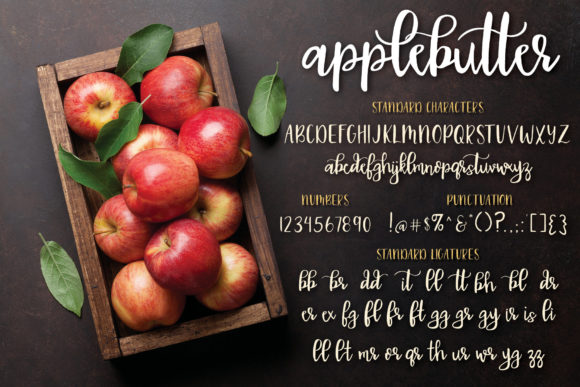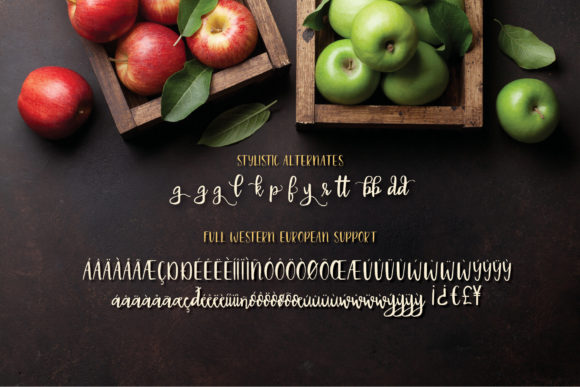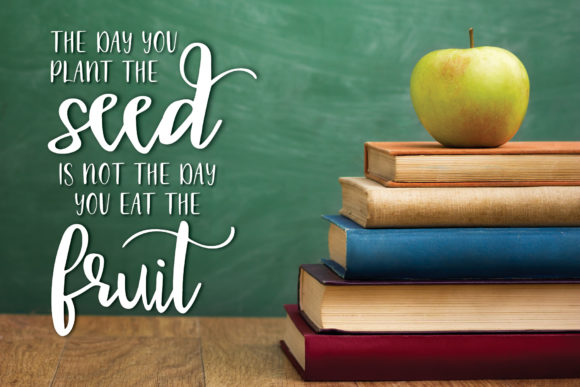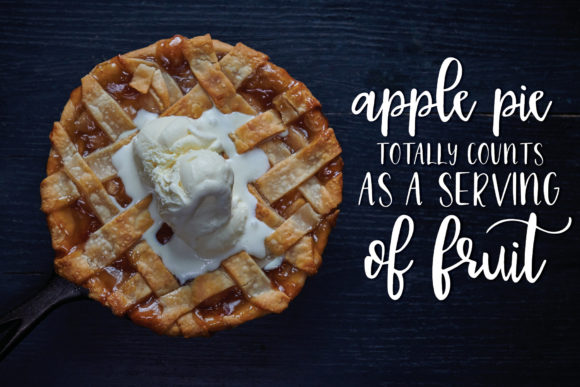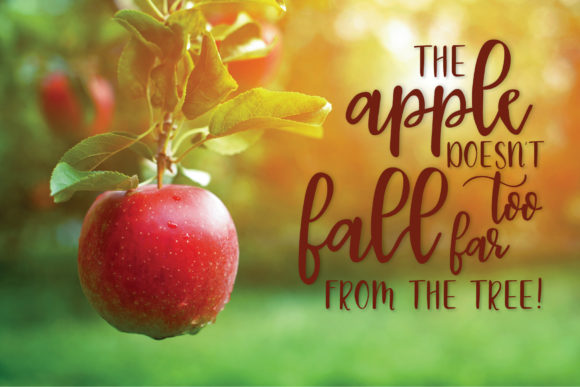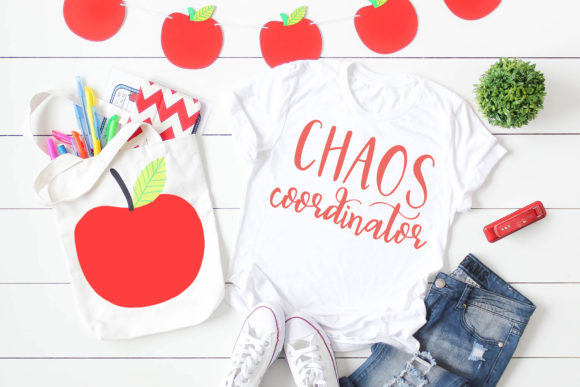
Introducing Applebutter Font: Add a Touch of Whimsy to Your Creative Projects
Are you a designer, crafter, or DIY enthusiast looking for a unique and authentic font to elevate your creative projects? Look no further than Applebutter Font, a hand-lettered whimsical font that’s perfect for adding a touch of personality to your invitations, art prints, and more.
What is Applebutter Font?
Applebutter Font is a one-of-a-kind, hand-lettered font that’s been carefully crafted to bring a sense of whimsy and charm to your designs. With its playful, cursive style and intricate details, this font is sure to capture the attention of your audience and leave a lasting impression.
Applebutter Font is incredibly versatile and can be used for a wide range of creative projects, including:
- Invitations: Whether you’re planning a wedding, birthday party, or baby shower, Applebutter Font is the perfect choice for creating beautiful, eye-catching invitations that set the tone for your special event.
- Art Prints: Add a touch of personality to your art prints with Applebutter Font, which is perfect for creating stunning typography-based art pieces, quotes, and posters.
- Crafting: If you’re a crafter, Applebutter Font is a great choice for adding a personal touch to your DIY projects, such as handmade cards, gift tags, and scrapbooking pages.
Why Choose Applebutter Font?
So why choose Applebutter Font over other fonts available? Here are just a few reasons why this font stands out:
- Unique and Authentic: Applebutter Font is a truly unique and authentic font that’s been hand-lettered with love and care. It’s the perfect choice for designers and crafters who want to add a personal touch to their projects.
- High-Quality: Applebutter Font is a high-quality font that’s been carefully crafted to ensure that it looks great in any size or format.
Tips for Using Applebutter Font
Here are a few tips for getting the most out of Applebutter Font:
- Experiment with Different Sizes: Applebutter Font looks great in a range of sizes, from small and delicate to large and bold. Experiment with different sizes to find the one that works best for your project.
- Pair with Other Fonts: Applebutter Font pairs beautifully with other fonts, so don’t be afraid to experiment with different combinations to find the one that works best for your project.
- Use for Headlines and Titles: Applebutter Font is perfect for headlines and titles, where its playful and whimsical style can really shine.
Key Features of Applebutter Font
- Hand-lettered whimsical font
- Perfect for invitations, art prints, and creative projects
- Unique and authentic style
- High-quality font